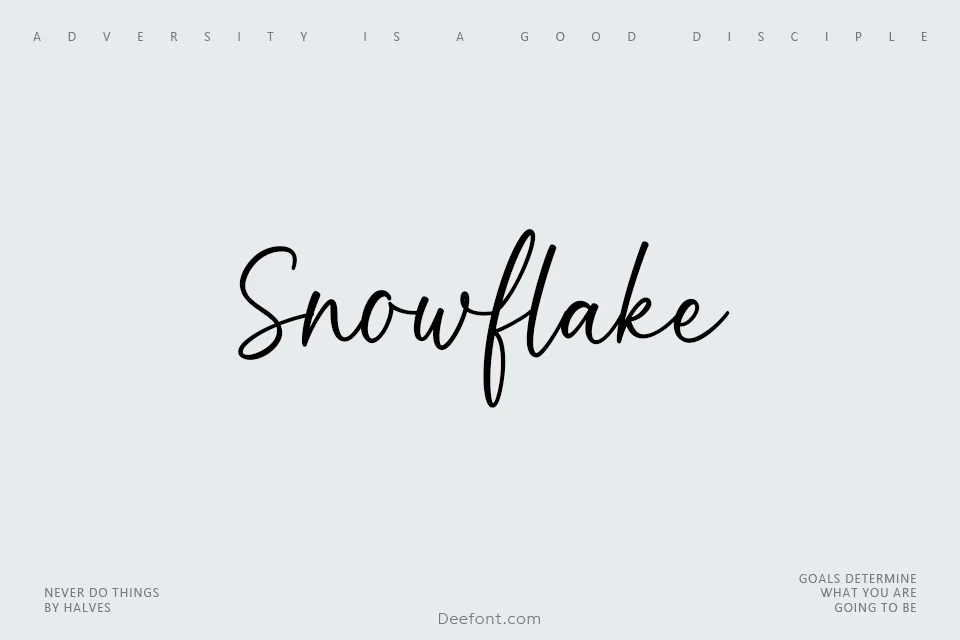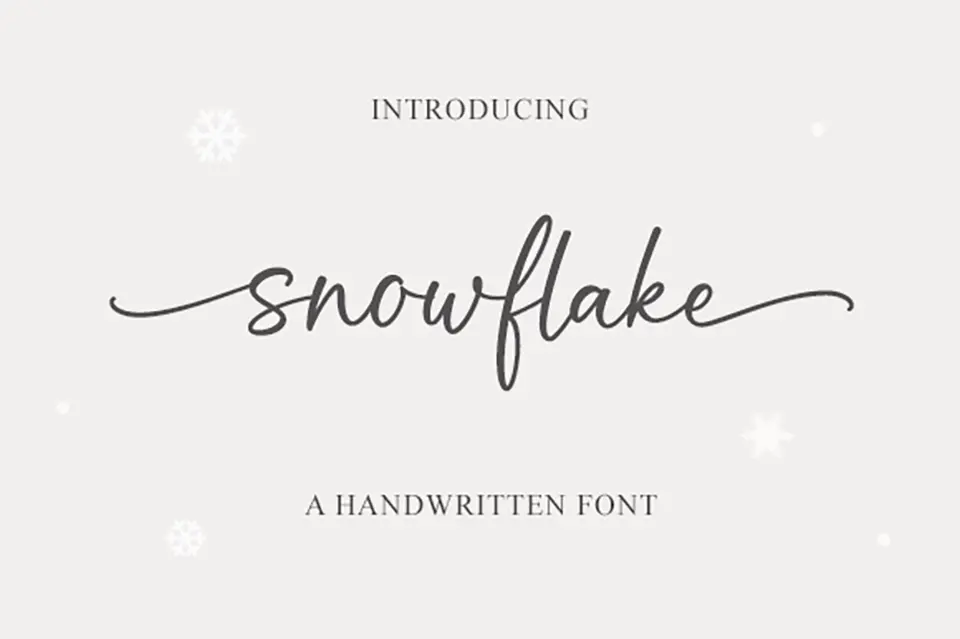
Snowflake Font
Snowflake is an enchanting handwritten script font that combines elegant curves with modern sophistication. This versatile typeface features smooth, flowing lines perfect for wedding invitations, greeting cards, social media graphics, and creative projects. The font’s delicate yet confident strokes create a romantic and contemporary feel, making it ideal for any design requiring a personal, sophisticated touch to elevate typography.